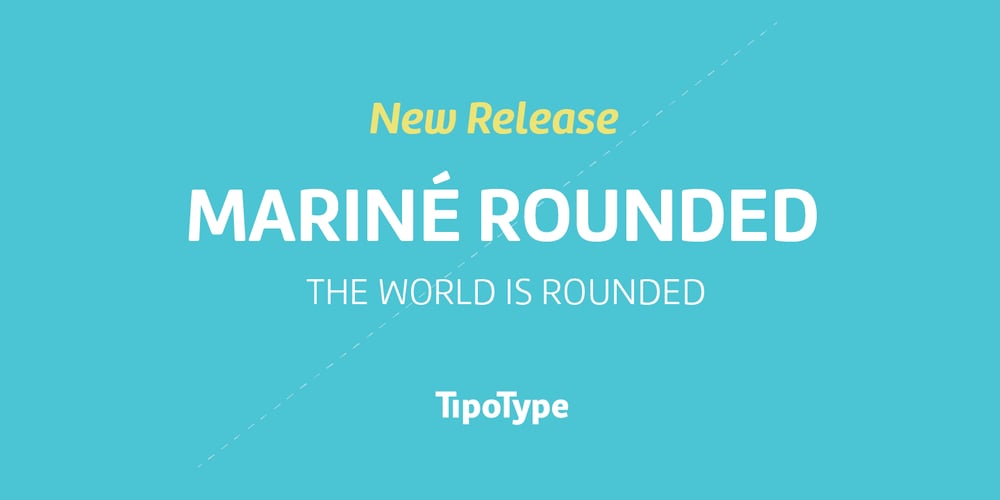
Mariné Rounded Font Family was designed by Martin Sommaruga and published by TipoType. Mariné Rounded contains 14 styles and family package options. Mariné Rounded is a geometric sans, but with the softness of humanistic strokes. Its mild contrast and multiple different styles allow Mariné to work well both as a text and display typeface. It also includes an Up version and calligraphic features adding a touch of informality.